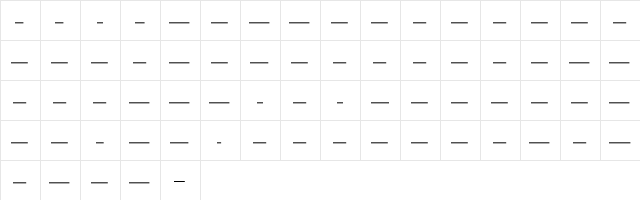
City-HomelessOne Medium Font Preview
City-HomelessOne Medium
City-HomelessOne Medium Font Details
Design Context for City-HomelessOne Typeface
City-HomelessOne is a composed and adaptable typeface that performs quietly and consistently across a wide range of design contexts.